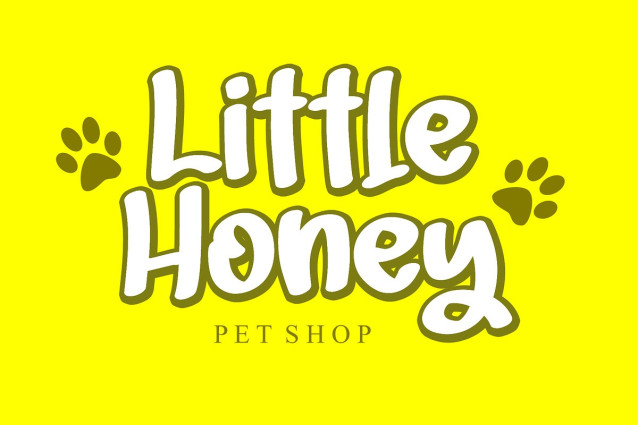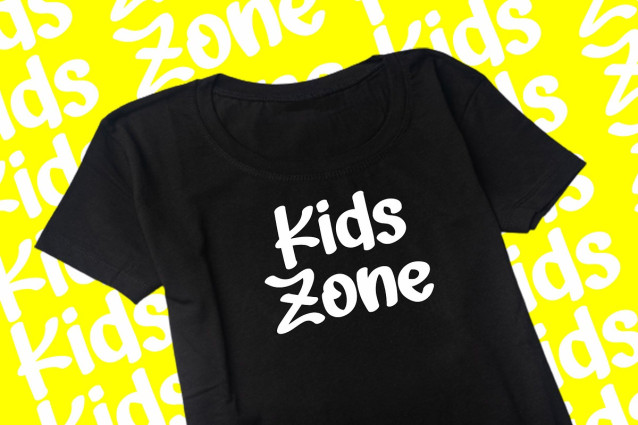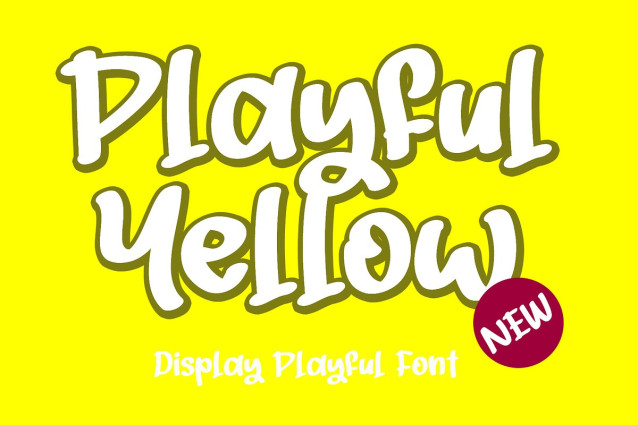
Playful Yellow Font
Playful Yellow Font a delightfully adorable and unconventional typeface that will instantly uplift the charm and aesthetic appeal of your diverse design layouts. Unique yet versatile, this whimsical font infuses an element of joy and creativity, transforming your visual narratives into captivating artworks. Just as cheerful as a sunlit day, the “Playful Yellow” is here to sprinkle some fun on your design tapestry.